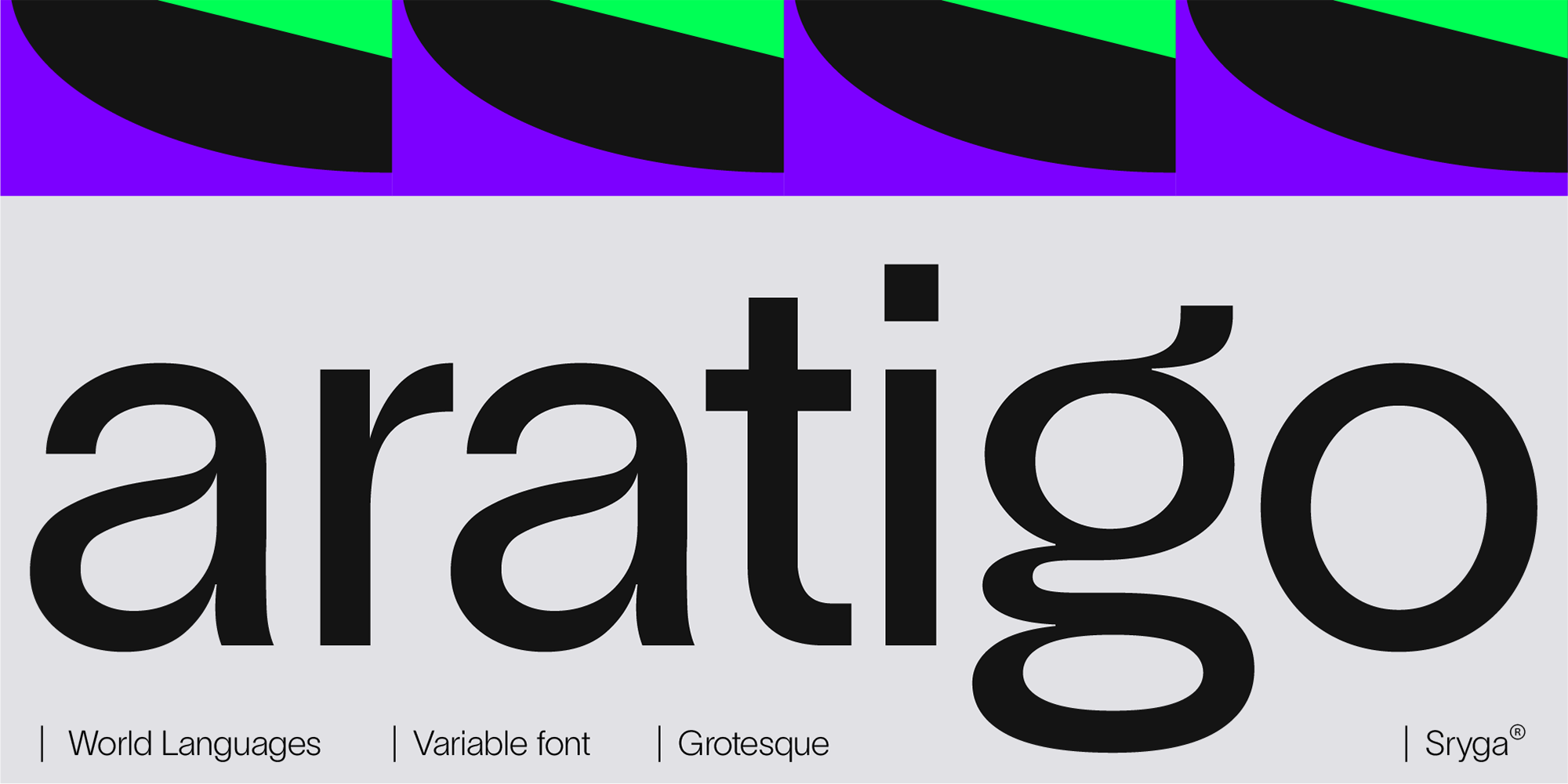
Aratigo Font is perfect for contemporary design applications including modern brand identity, clean web typography, minimalist packaging design, corporate presentations, professional business cards, editorial magazine layouts, architectural firm branding, and sophisticated advertising campaigns that require typography with refined simplicity and elegant functionality.
What makes Aratigo Font exciting is its masterful balance of geometric precision and humanistic warmth that creates exceptional readability while maintaining distinctive contemporary character. This versatile typeface features carefully optimized letterforms with subtle personality touches that ensure outstanding performance across all media formats. The font's sophisticated neutrality and professional appeal make it ideal for brands seeking to communicate reliability, innovation, and modern excellence to diverse audiences who value both style and substance.
Aratigo Font family encompasses a comprehensive range of weights and styles designed for complete typographic flexibility. The family typically includes thin, light, regular, medium, bold, and black weights, each available in upright and italic versions, plus condensed alternatives with extensive multilingual support and advanced OpenType features for professional applications.
Professional designers consistently select Aratigo Font Free Download for projects requiring typography that delivers both aesthetic appeal and functional excellence. This adaptable typeface transitions seamlessly between display and text applications, maintaining consistent visual hierarchy and brand communication across all platforms. The font's meticulously engineered proportions ensure optimal legibility at any size while providing the clean, contemporary presence that modern brands demand. Leading design agencies worldwide trust this versatile typeface to communicate brand values of professionalism, clarity, and forward-thinking innovation. Elevate your brand's contemporary presence with Aratigo Font and create compelling visual communications that connect with today's audiences who appreciate thoughtful design, functional excellence, and sophisticated simplicity in professional typography.